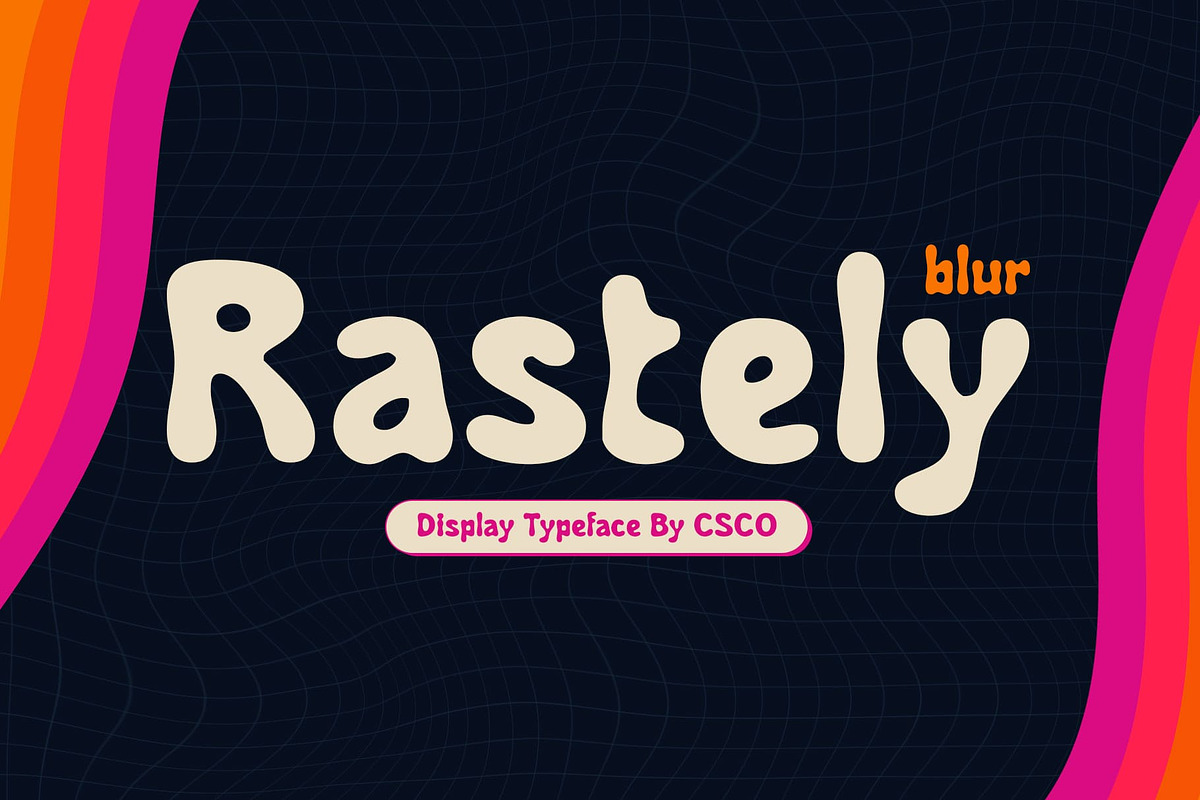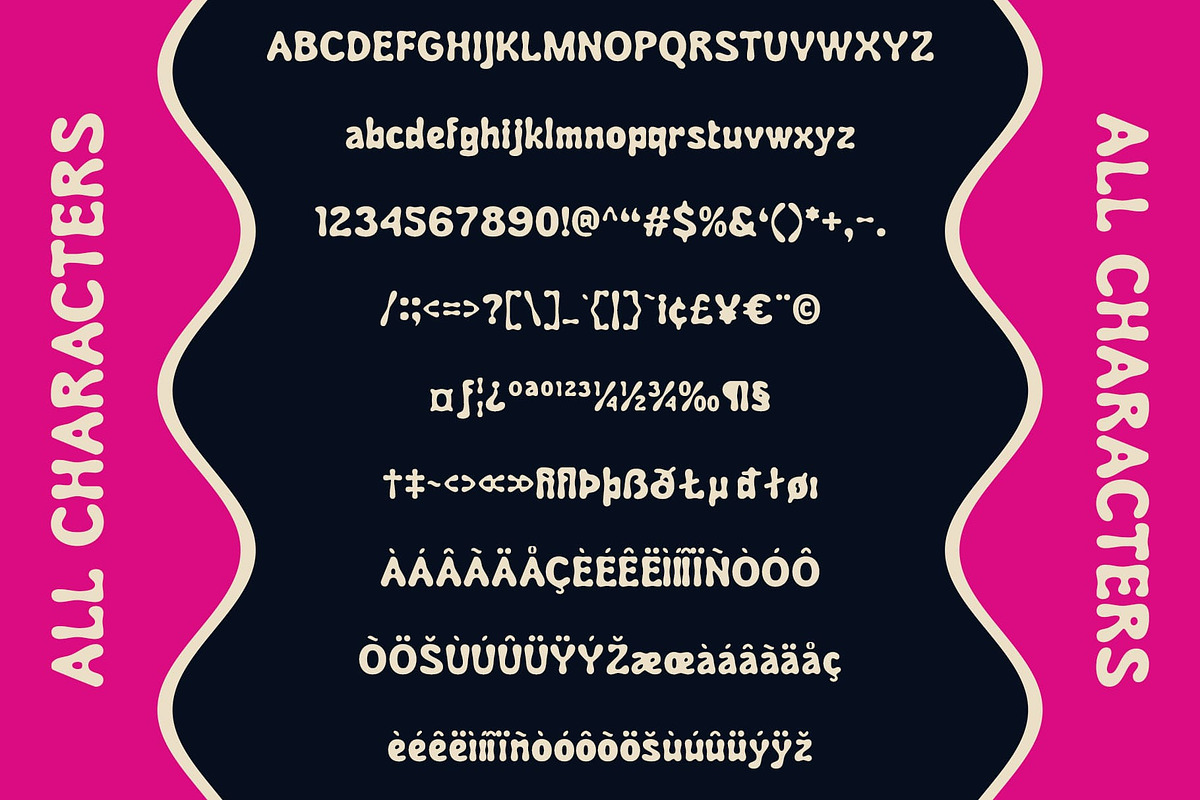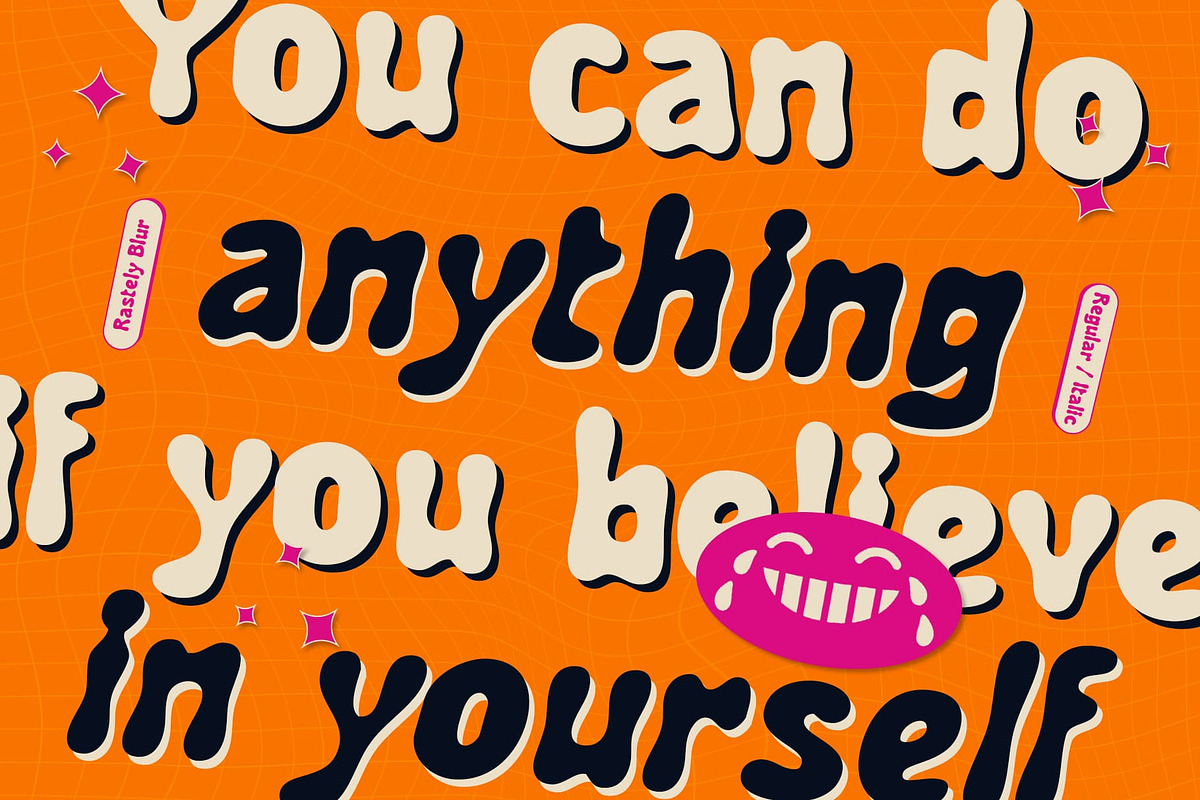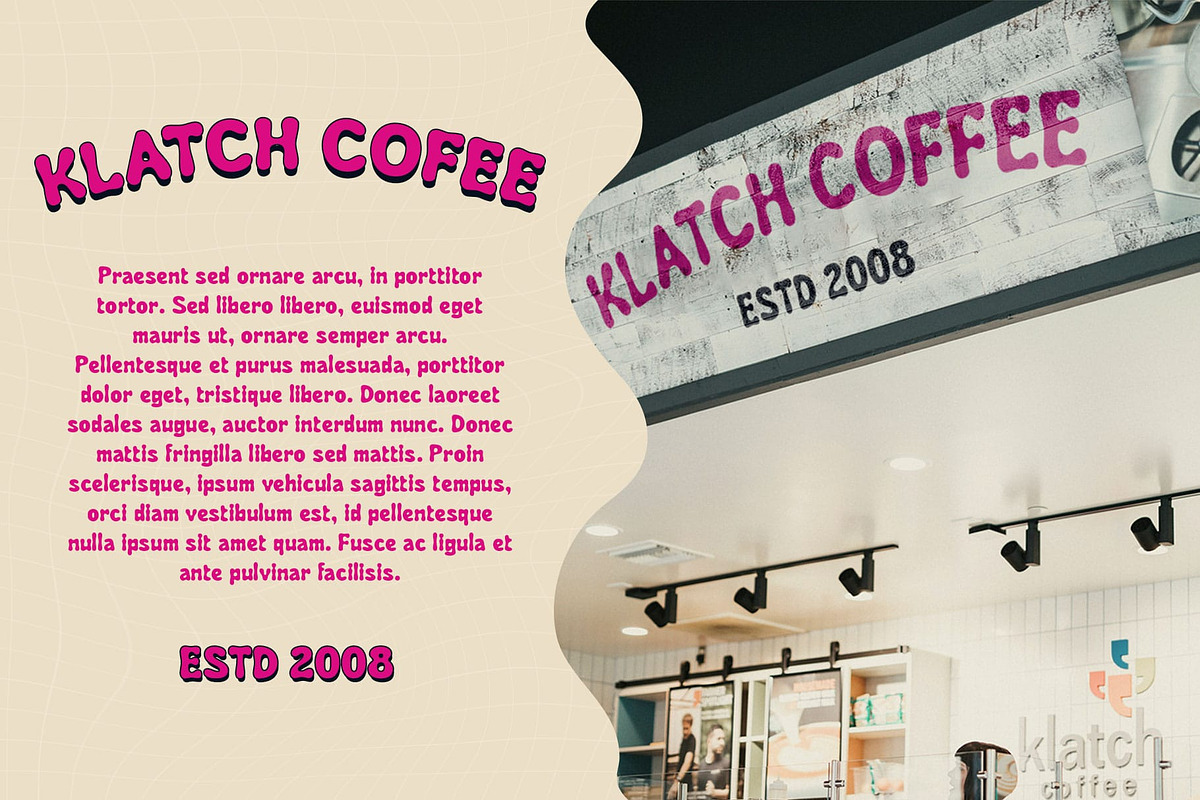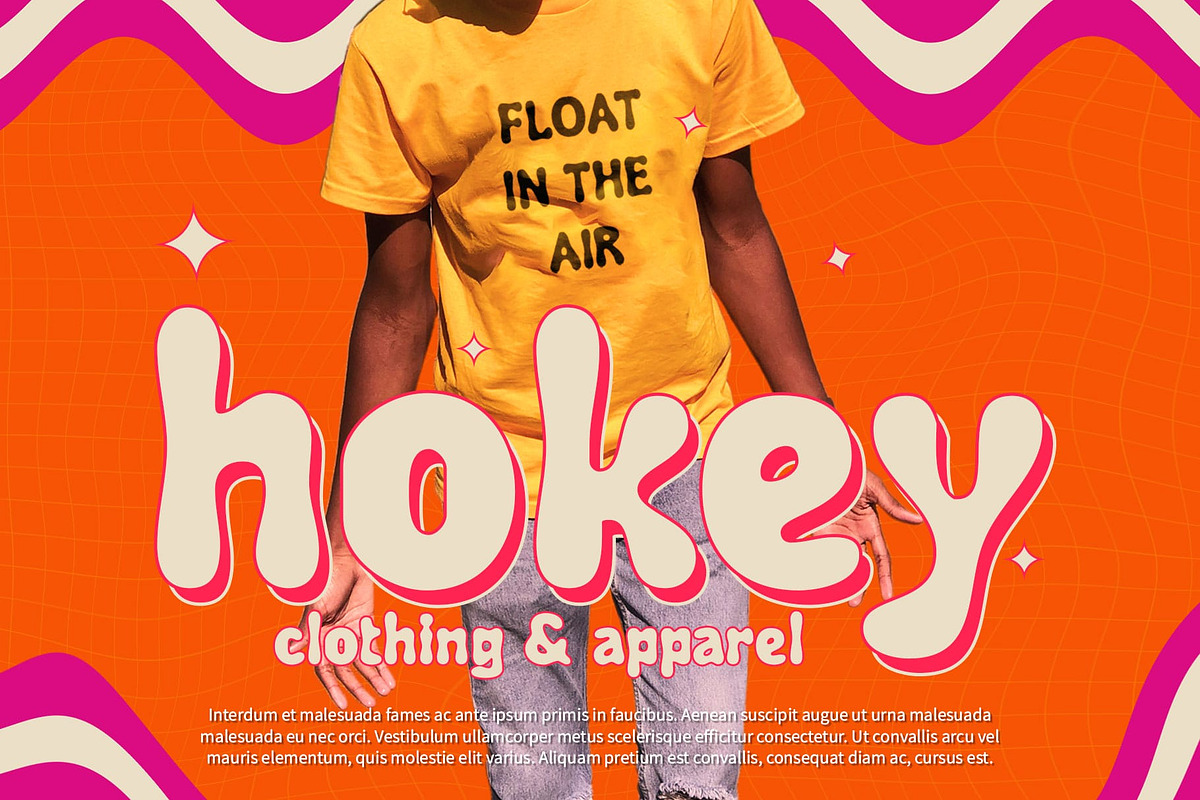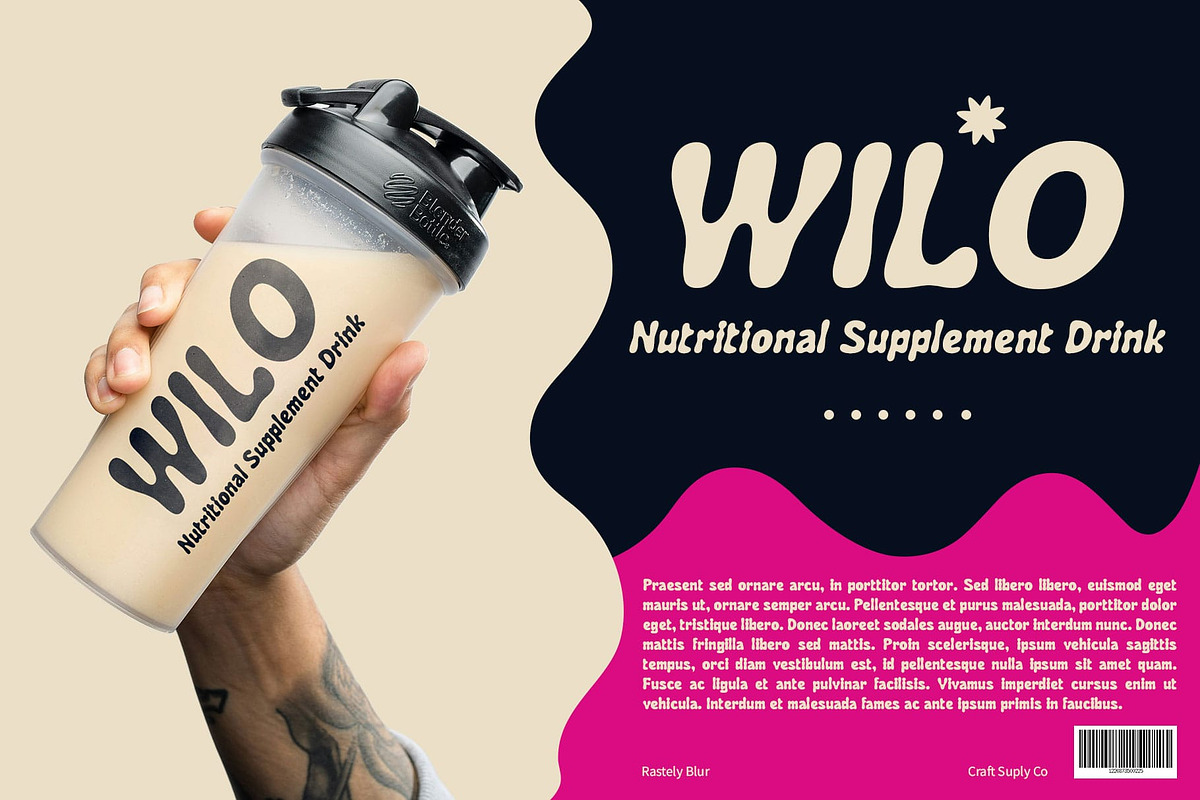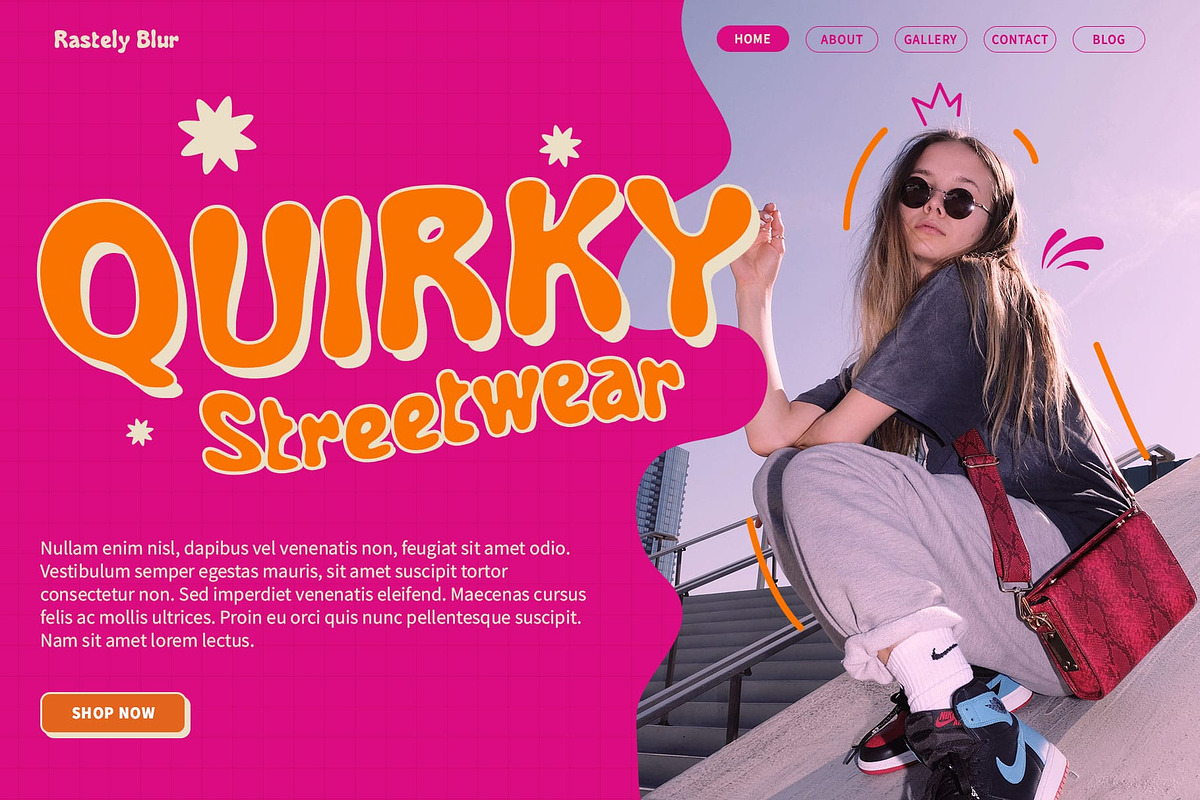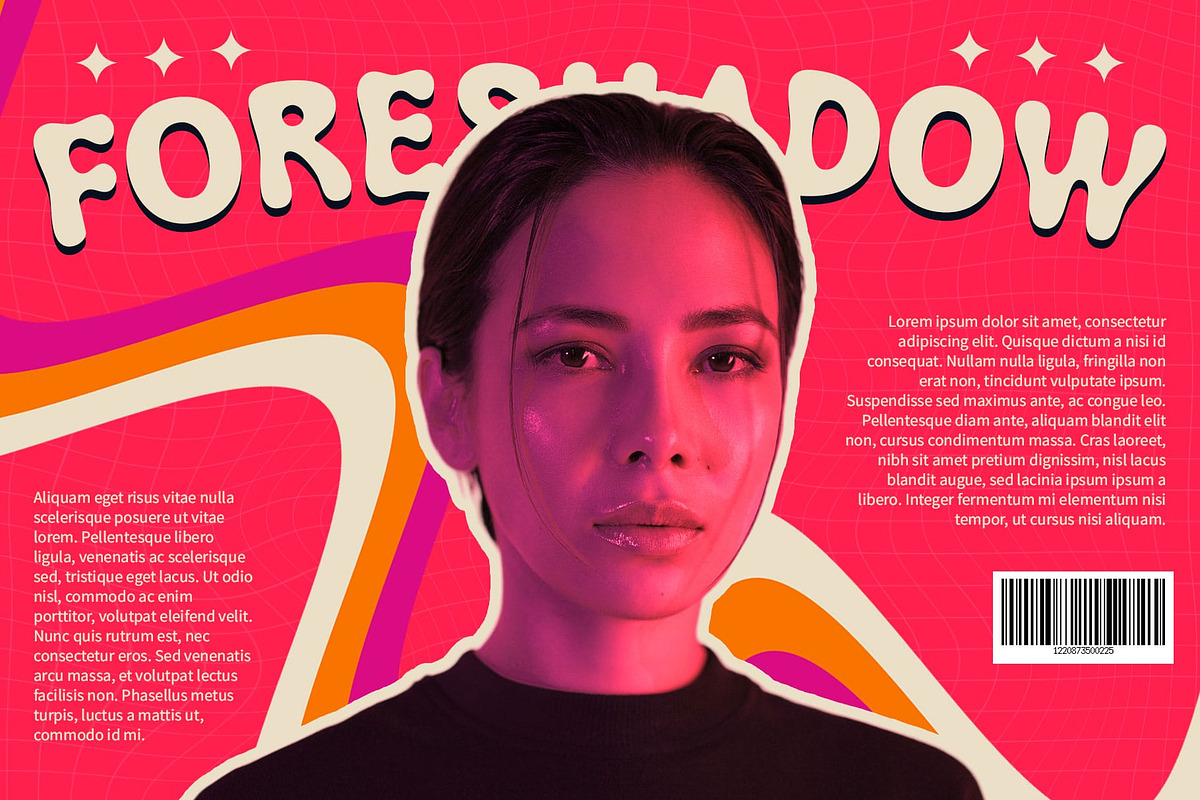
Rastely Blur
Rastely Blur: A Psychedelic Fusion of Creativity
Display Font with Psychedelic Shapes and Funky Vibes
Rastely Blur is a display font that offers a unique and creative appearance, combining psychedelic shapes, funky vibes, and a blur effect. This font is perfect for projects that aim to showcase a unique and experimental style, such as poster designs, creative graphics, and other art projects.
Striking and Distinctive Design
With its striking and distinctive design, Rastely Blur stands out and grabs attention. The combination of psychedelic elements, funky vibes, and the blur effect creates a look that is full of character and strong visual appeal.
Ideal for Creative Projects
Whether you’re working on poster designs, creative graphics, or other art projects, Rastely Blur can add a touch of creativity and uniqueness to your work. Its blend of psychedelic elements, funky vibes, and the blur effect makes it perfect for projects that aim to push the boundaries of design.
Elevate Your Designs with Rastely Blur
If you’re looking to add a unique and experimental style to your projects, Rastely Blur is the perfect choice. Its psychedelic shapes, funky vibes, and blur effect will give your designs a creative edge and make them stand out from the crowd.